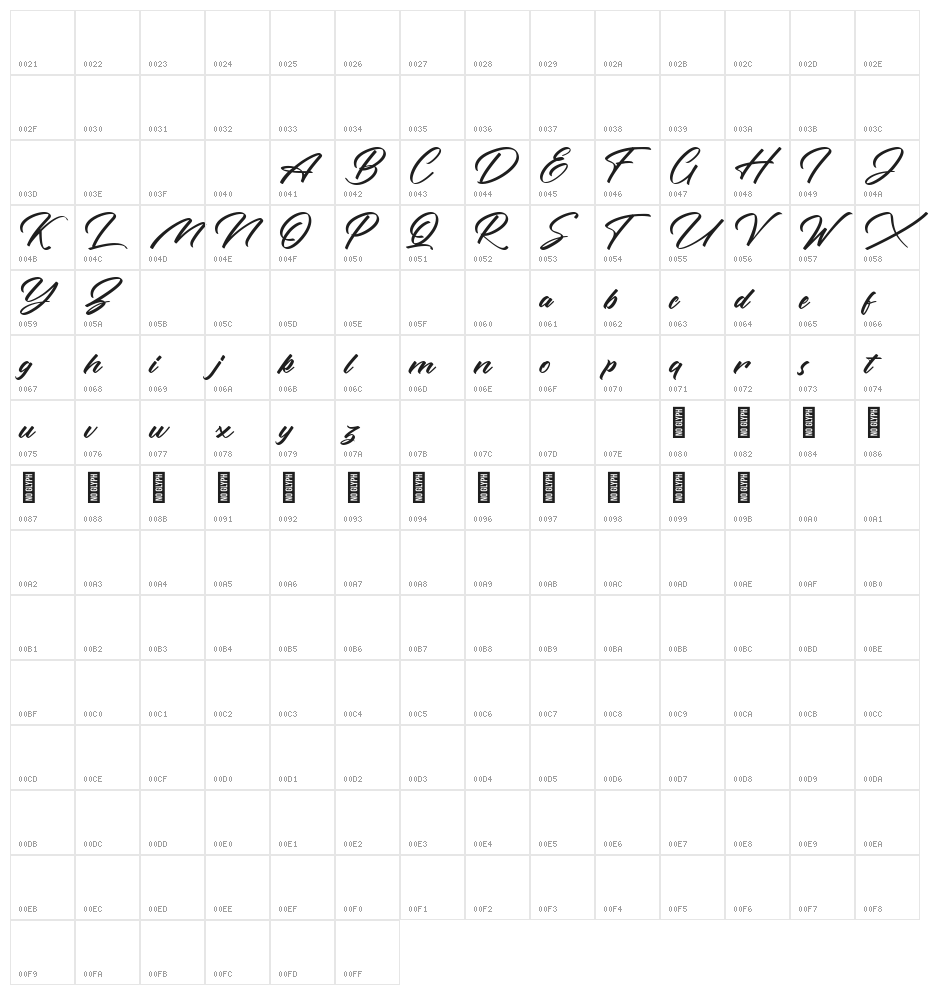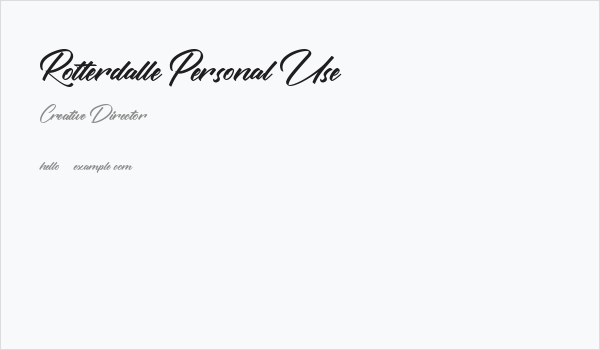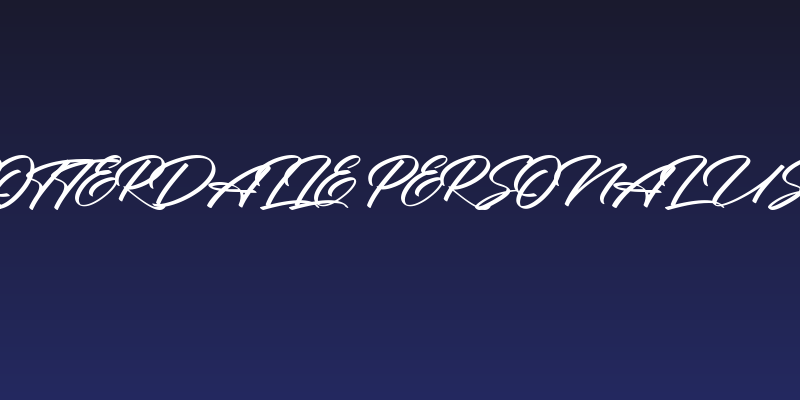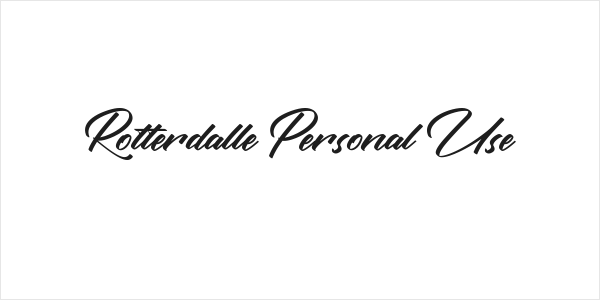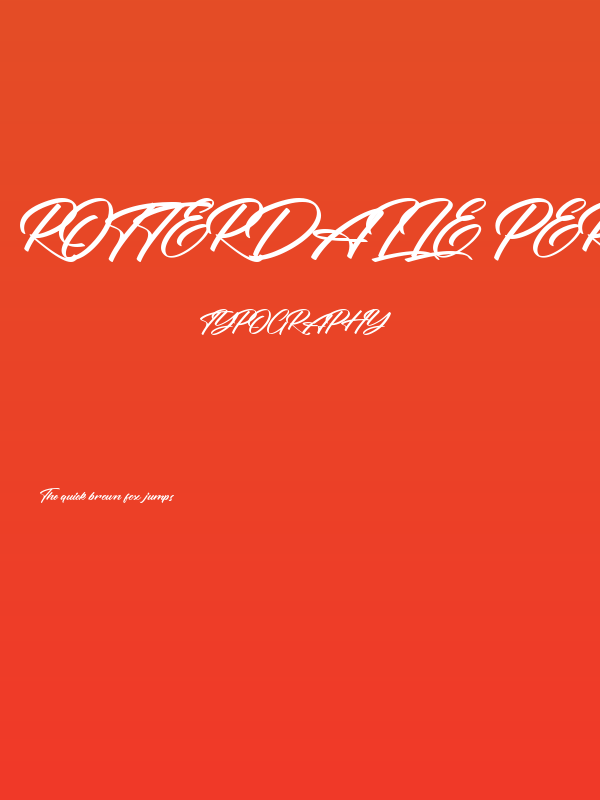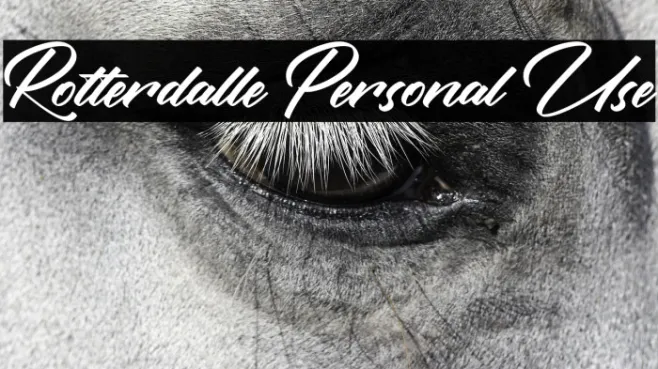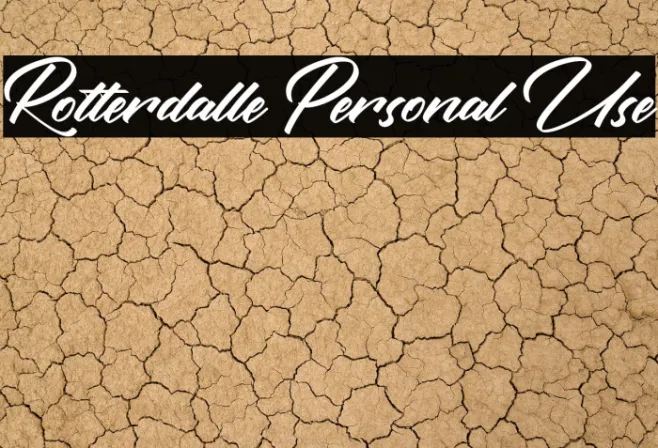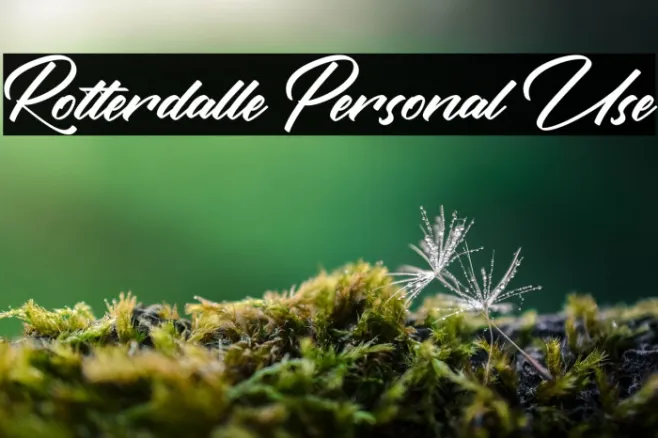
Rotterdalle Personal Use Font
Rotterdalle Personal Use Description
This font exhibits a dynamic and flowing script style, characterized by its elegant and cursive letterforms. The uppercase letters are particularly ornate, with sweeping curves and loops that give a sense of movement and sophistication. The lowercase letters maintain a consistent style, with smooth connections and a slightly more compact form, enhancing readability while retaining the decorative flair. The overall appearance is bold and expressive, making it suitable for designs that require a touch of elegance and personality. The font's strokes are moderately thick, providing a balanced contrast that ensures visibility and impact.
| Use Case | Logos, Invitations, Headlines |
| Proposed Projects | Ideal for wedding invitations, branding projects, elegant signage, and any design requiring a sophisticated script touch. |